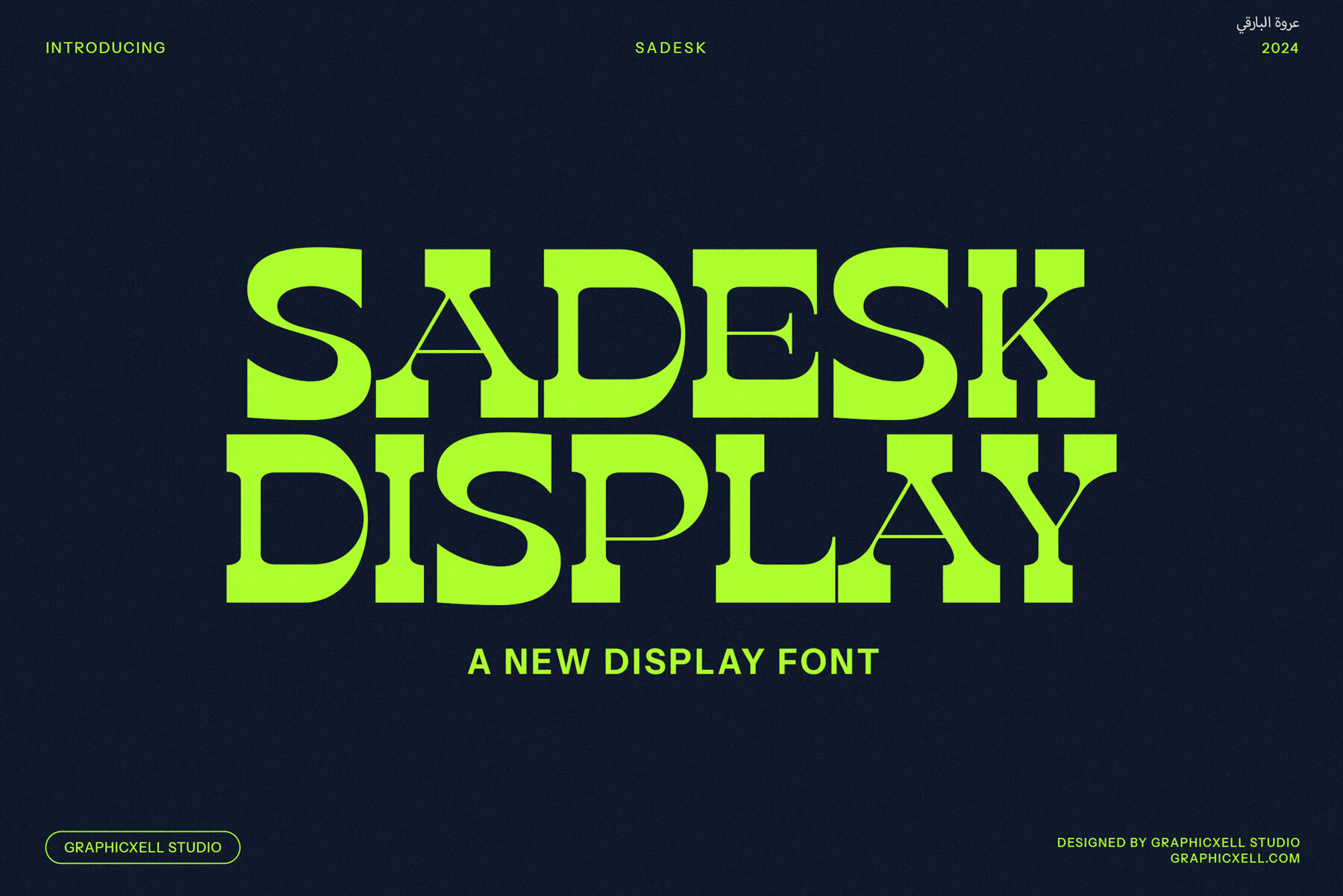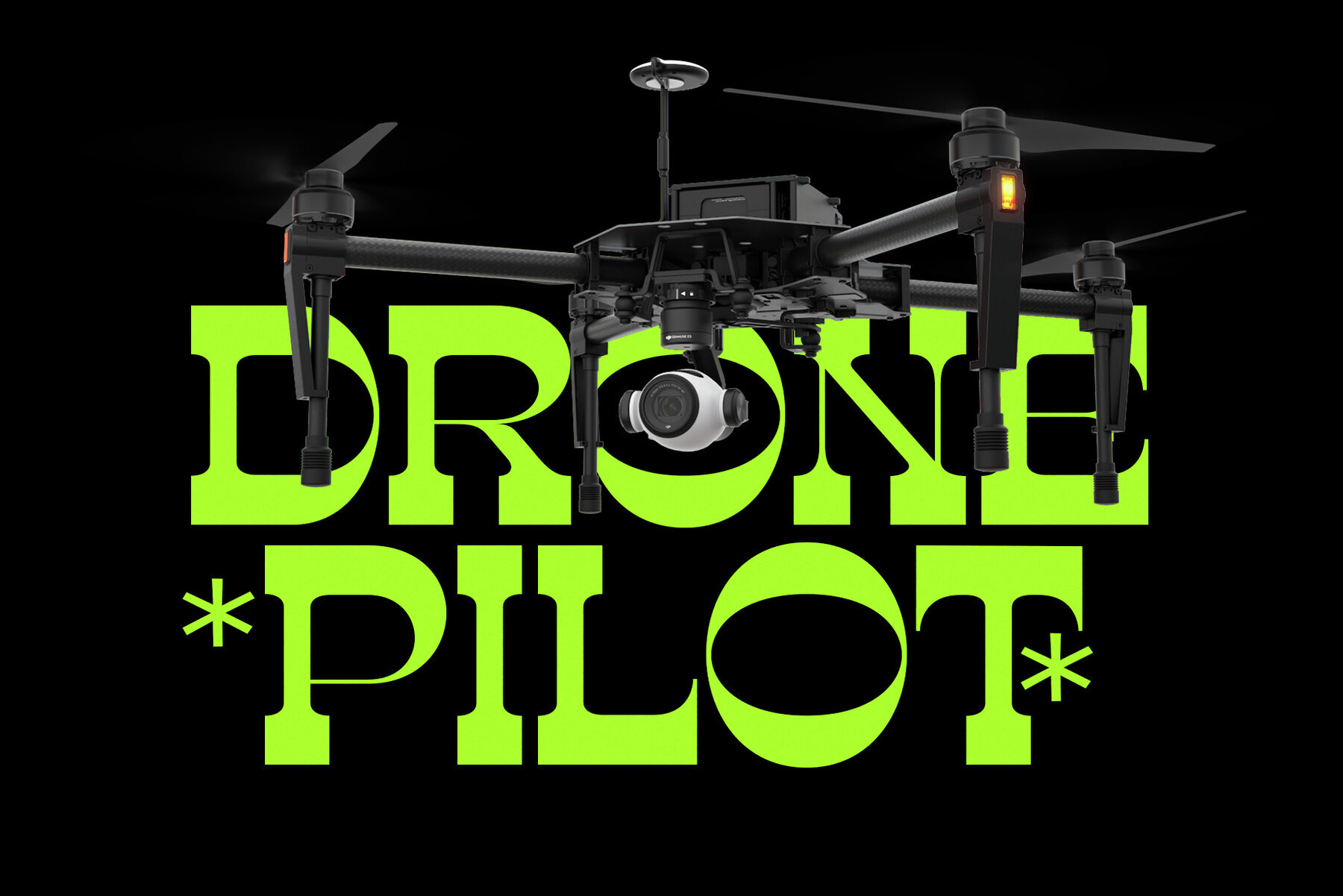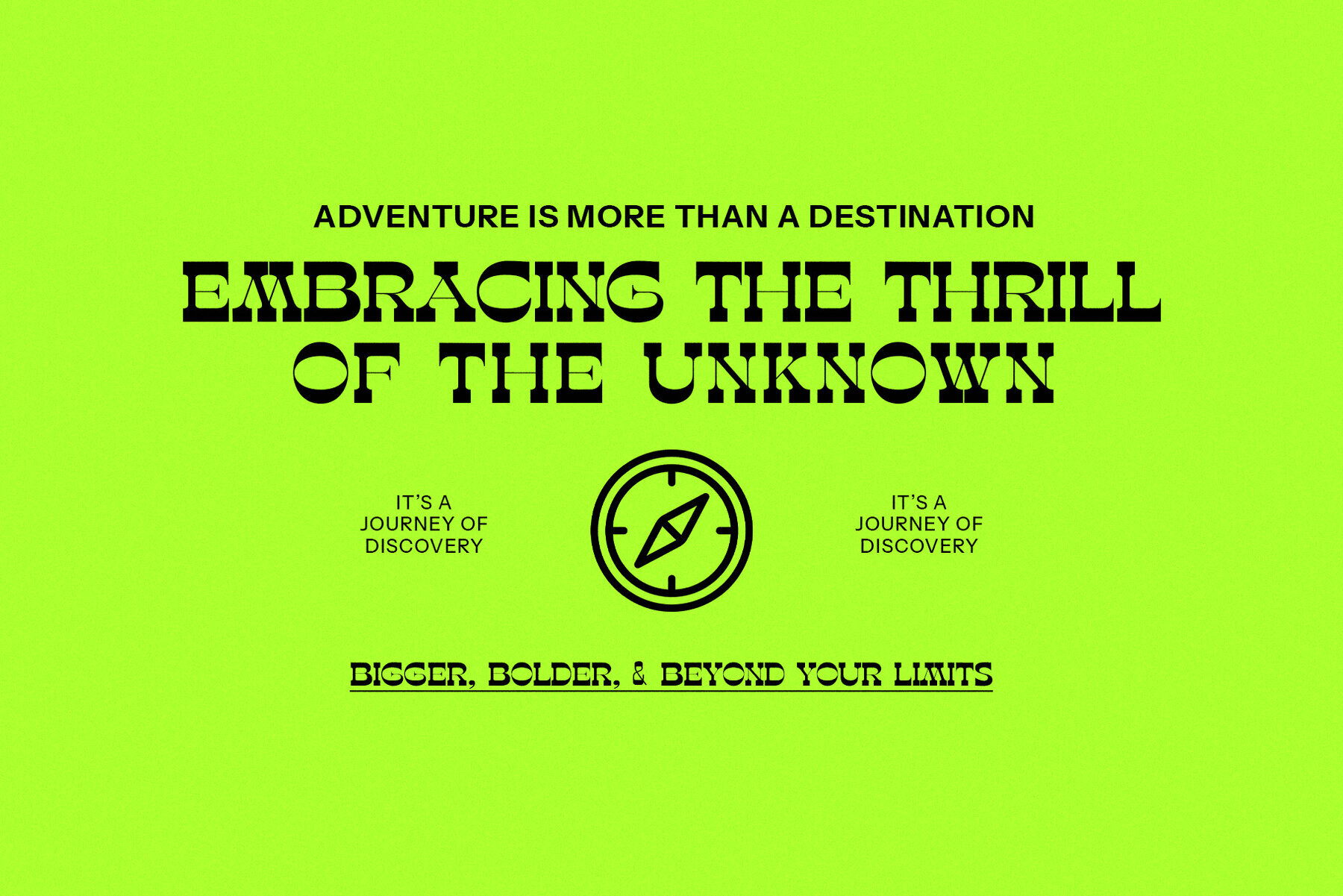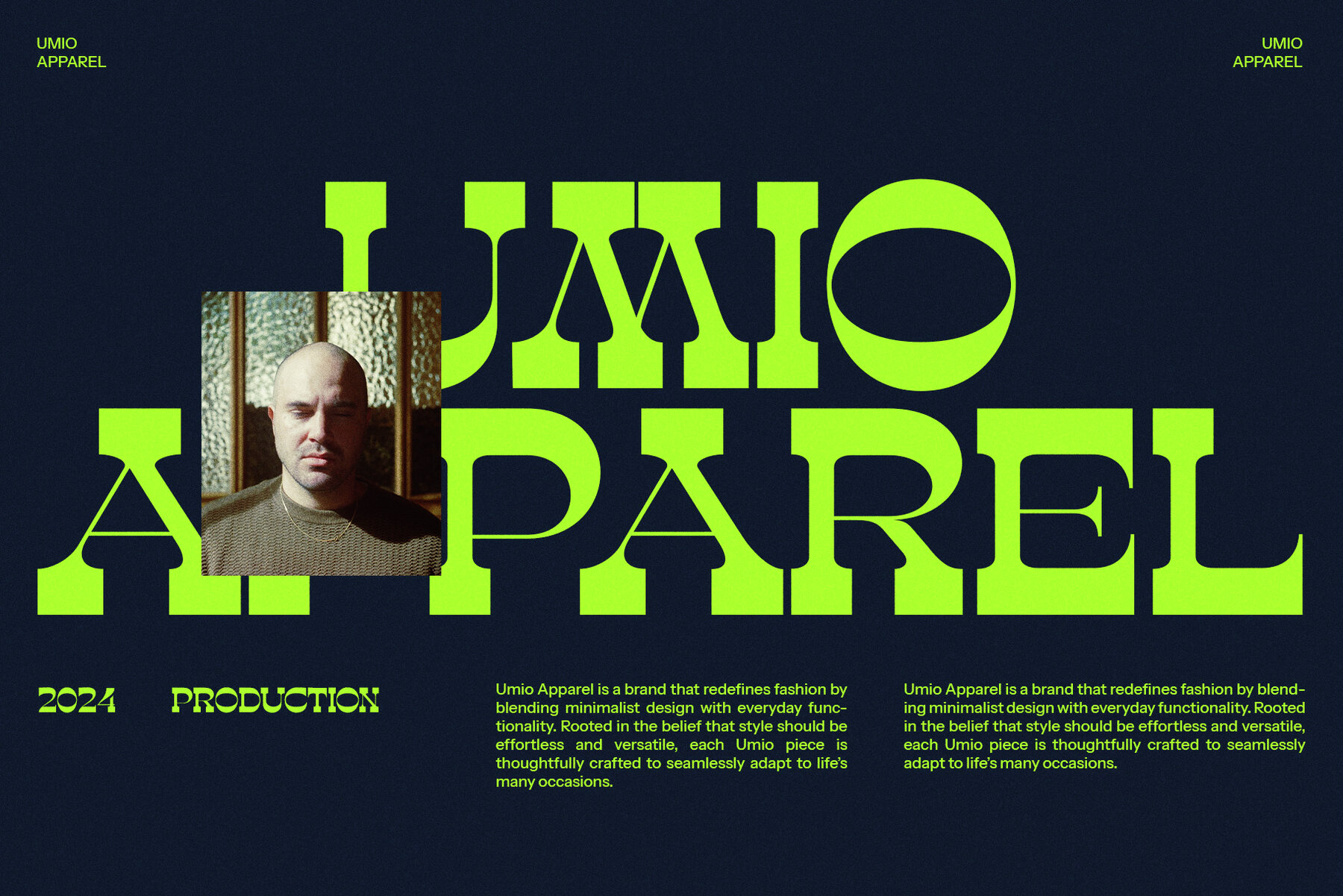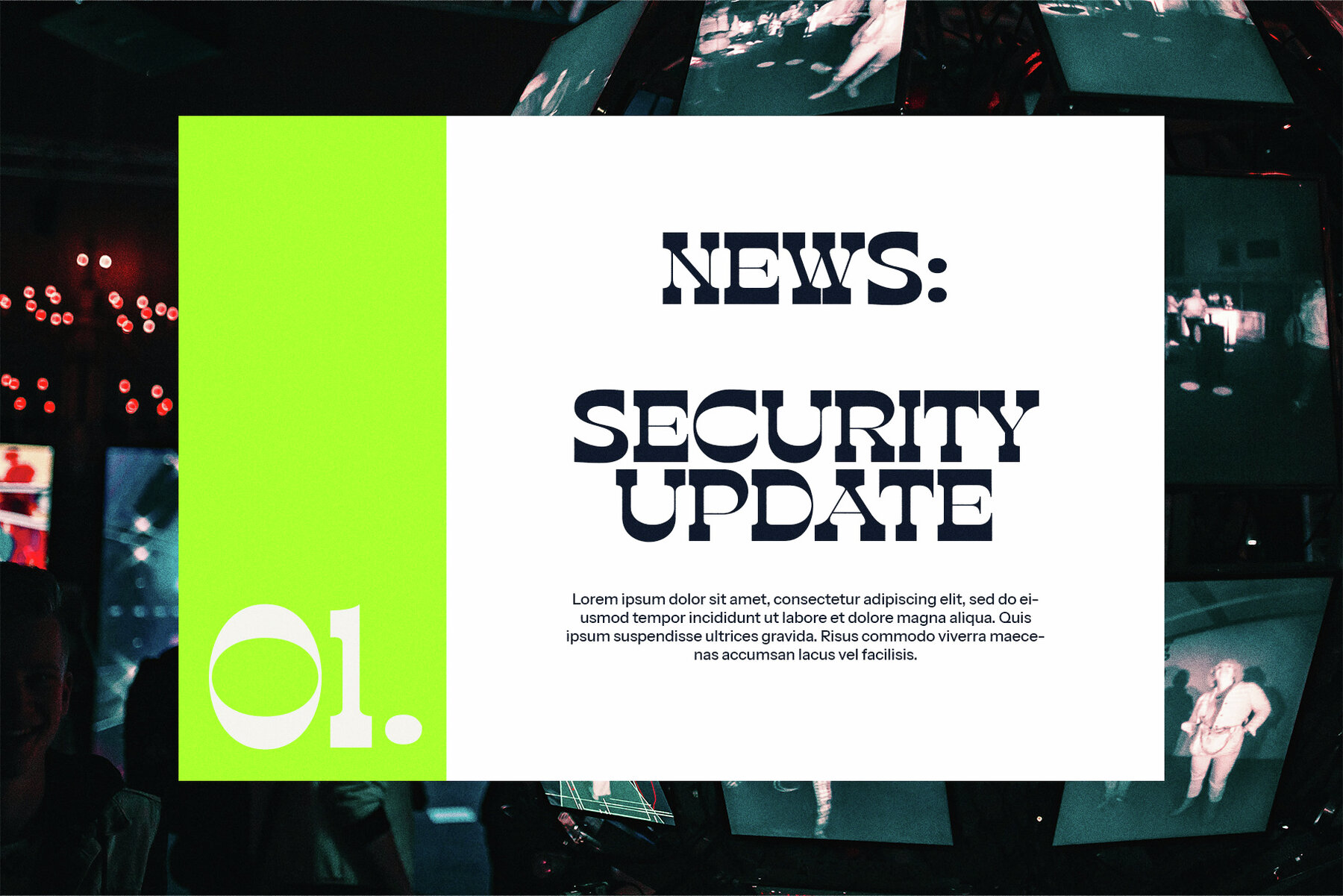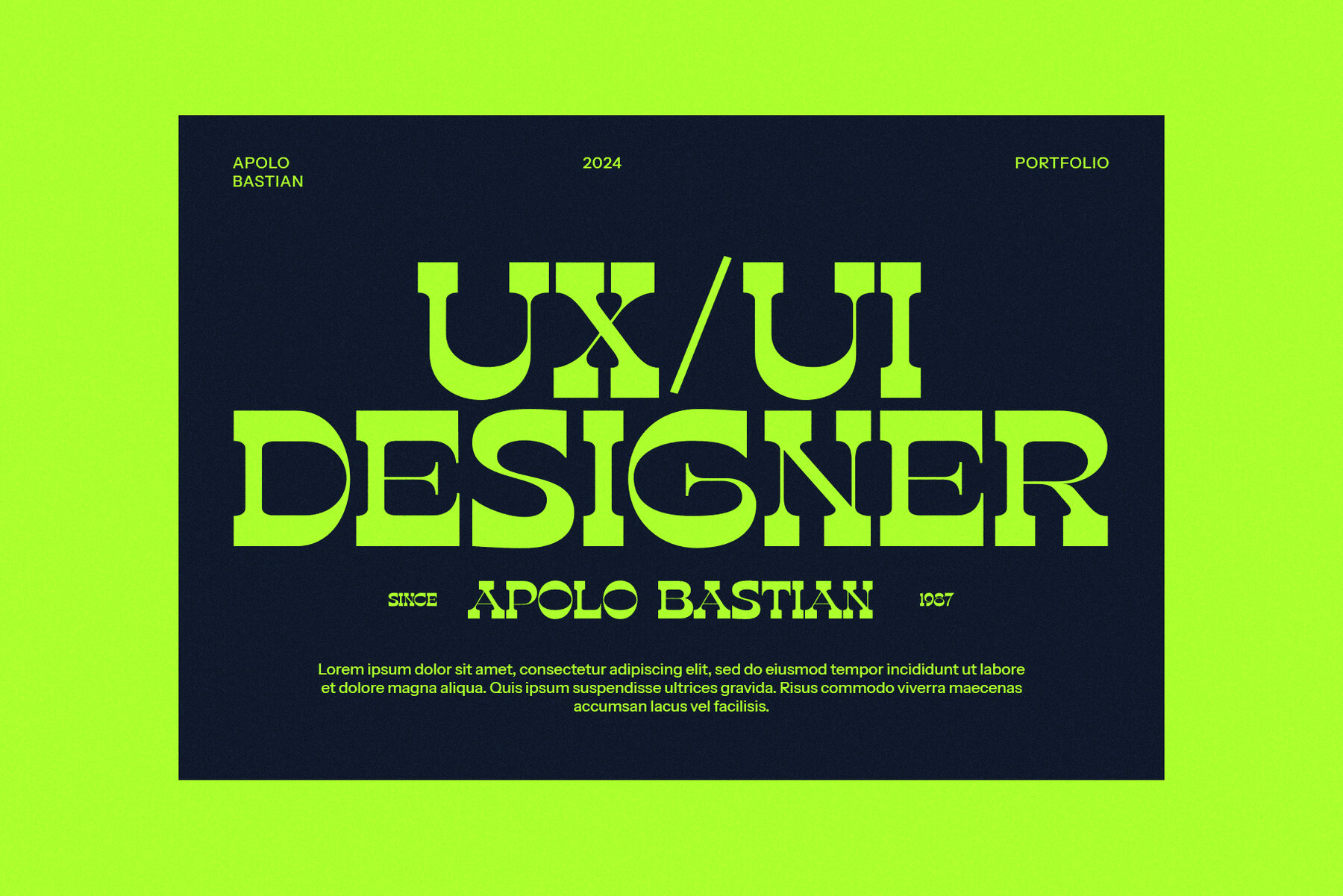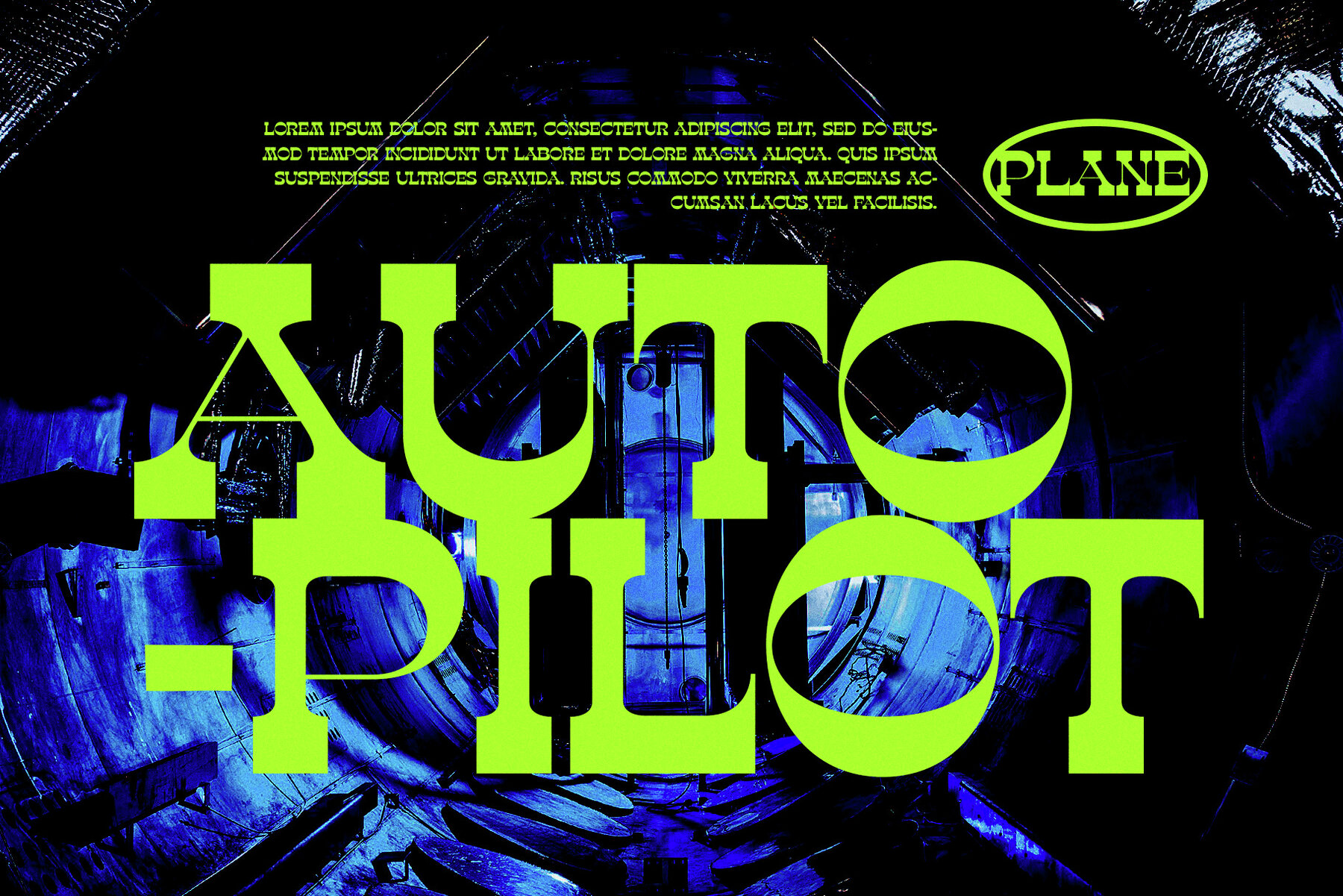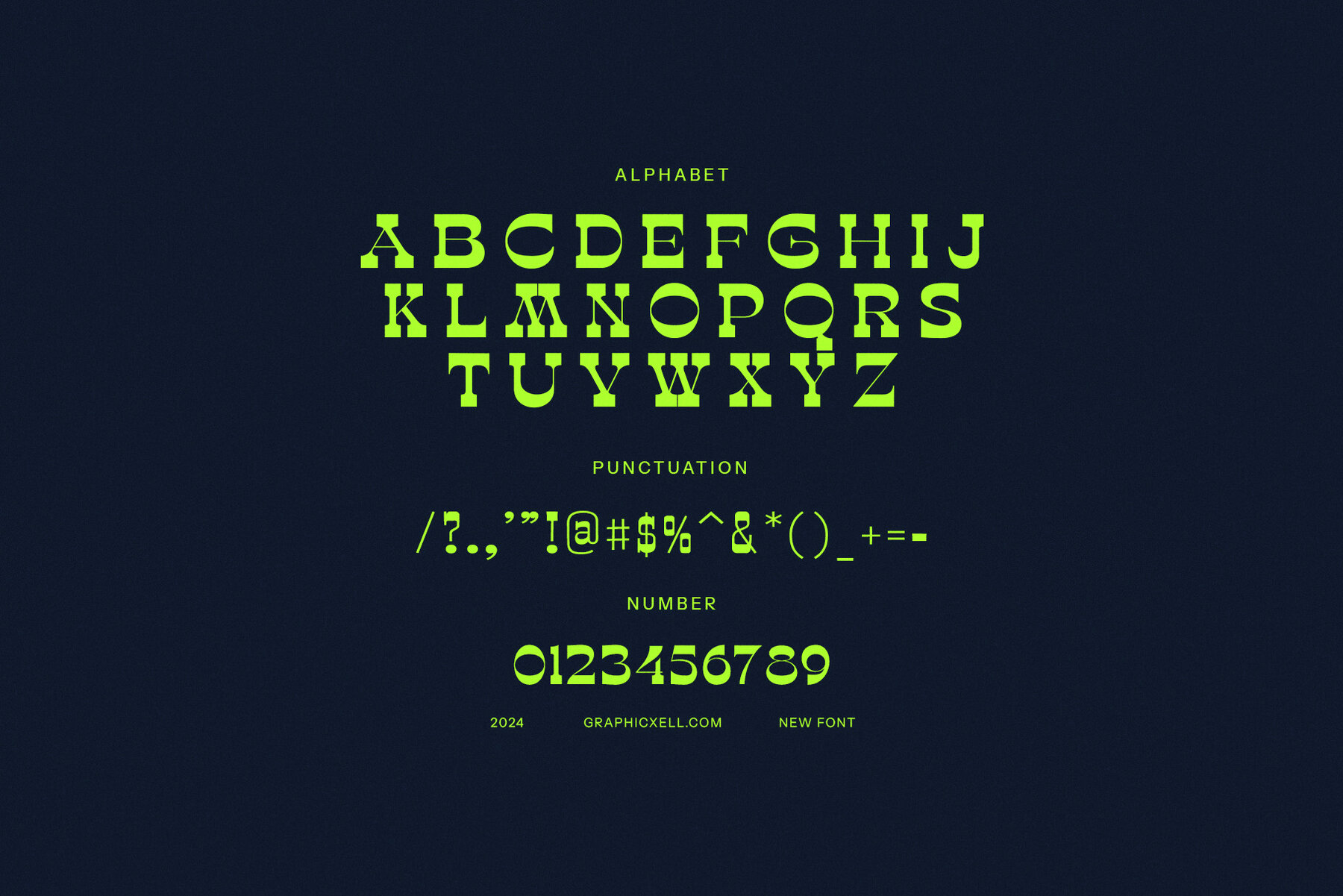
Sandesk Font
Sadesk
Sandesk Display Font is a captivating slab serif designed to merge vintage appeal with a modern technological vibe. Featuring bold, thick structures with square serifs, it is ideal for projects needing both strength and personality. Sandesk stands out through its subtle contrasts, with thin sections introducing a touch of vintage elegance. This font's versatility suits a variety of applications, including logos, branding, websites, magazines, and advertisements.
Display Sandesk in designs from tech startups to retro-inspired outlets. Its bold, sturdy appearance conveys professionalism, while nostalgic undertones evoke a classic sentiment. The strong, readable structure ensures clarity, and the unique vintage-modern blend creates a memorable visual identity. Perfect for modern branding, logo design, and web typography, Sandesk excels in creativity for posters, advertisements, and packaging. Embrace this fusion of old-school charm and a contemporary edge to ensure your projects stand out.